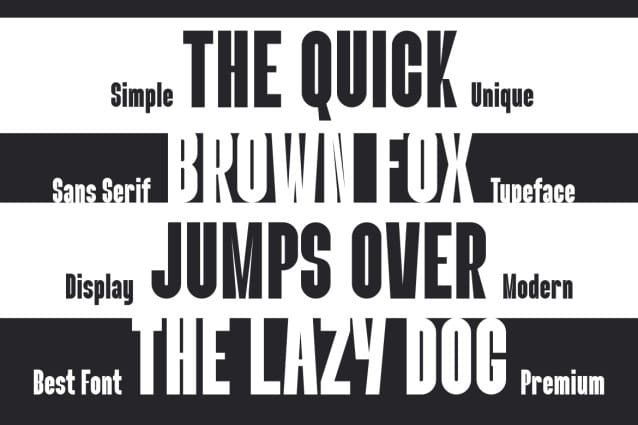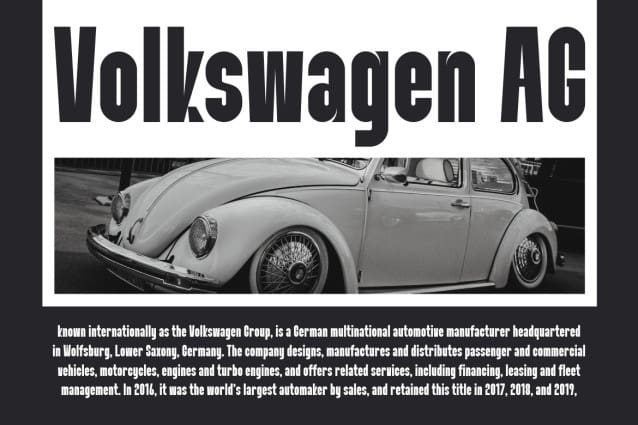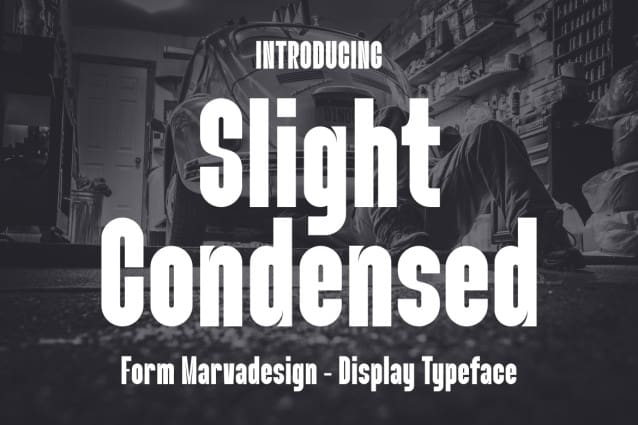
Slight Condensed Font
Slight Condensed Font – Modern Font is a bold and authentic display font. The font is suitable for any branding project such as logo, template design, product and many more. It looks outstanding in a wide range of contexts